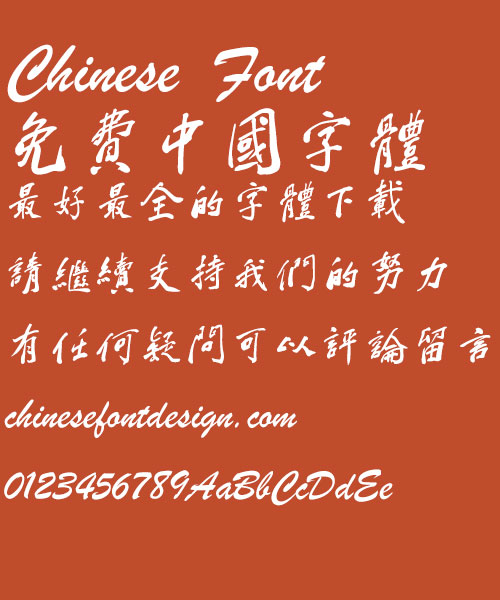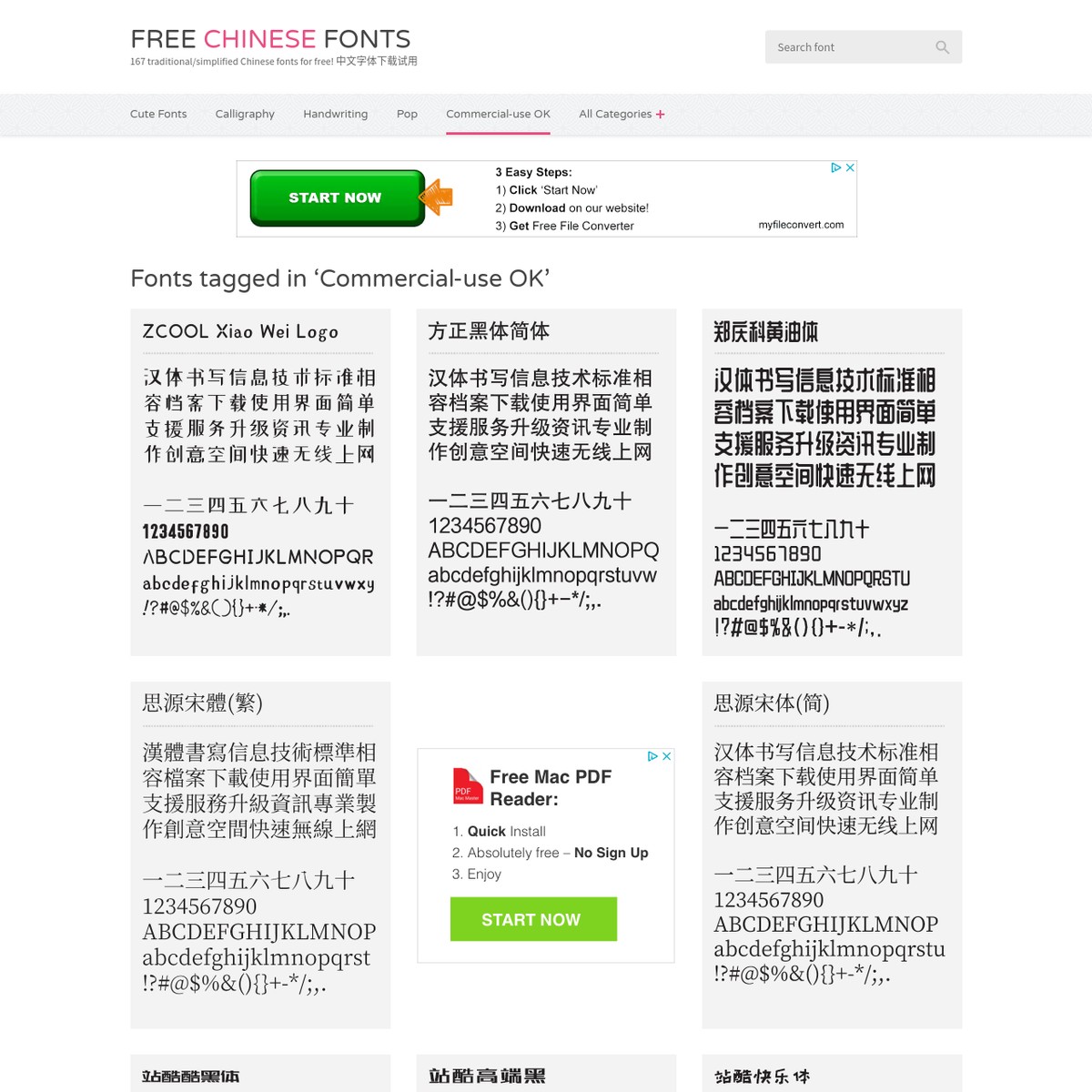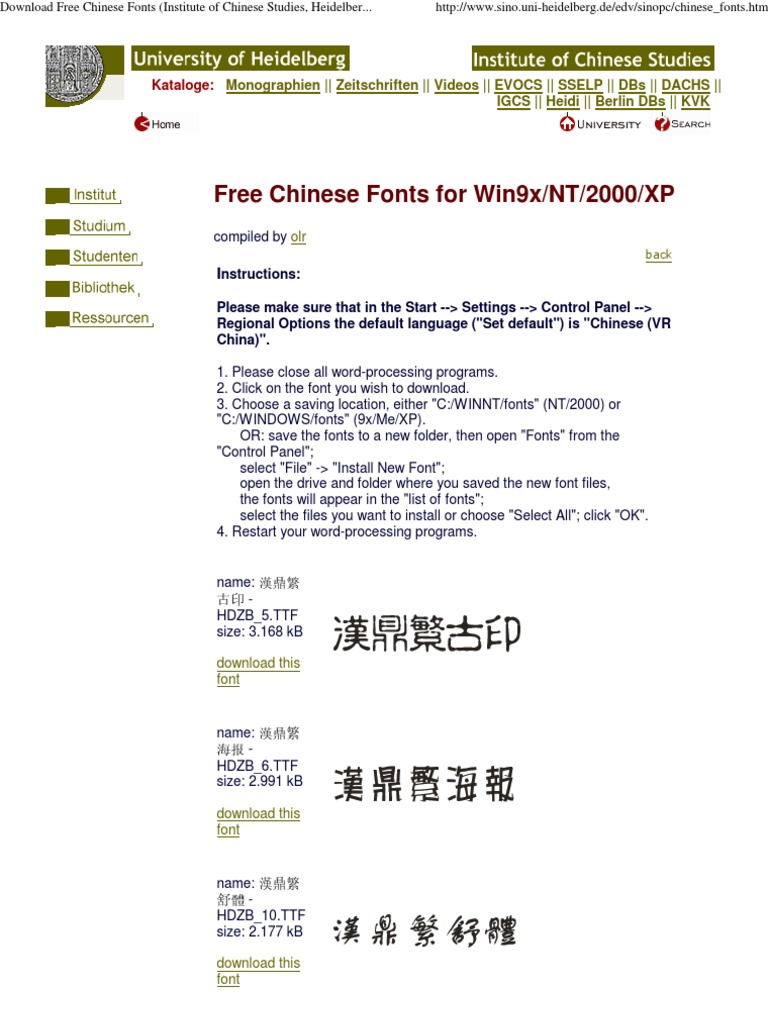
Meng na CO2YuenHKS-XboldOutline Font Simplified Chinese.
Free chinese fonts for commercial use. Ma Shan Zheng is a free calligraphic Chinese font that is set in a simplified Chinese character. Font Details cwTeX Q Ming Ti 中明體 is a traditional Chinese font that is free to download and you can use it in your commercial works. Free commercial Chinese fonts based on Siyuan Song Style.
Traditional cwTeX Q Ming. Free commercial font download of qingsong Handwritten Font. Hua Kang Dian Jing TiDFDianJing-B5 Font-Traditional Chinese.
This font is reminiscent of the font used in traditional couplet or dui. ZhanKu Happy Chinese Font Simplified Chinese. Meng na Wedding banquet Font- Traditional Chinese.
Simplified Founder Type Hei Ti. Free commercial Chinese font download. Font Details Han Wang Yen Light is a one of the font created by Taiwan professor Wang Han Zong 王汉宗 and is part of the open source font pack Wang.
ZhuLang Circle Art Chinese Font-Simplified Chinese Fonts. Meng na Xi yuanCYuen2HKS-Light Font Simplified Chinese. 17 Chinese Font Free For Commercial Use License- Wang han zong Fonts.
13 Fresh and Cool Fonts for Designers. Traditional cwTeX Q Kai. Quan zhen Yan ti Font-Traditional Chinese.
ZCOOL Xiao Wei Logo 站酷小微logo体 is a casual typeface you can download for free. Free commercial Chinese font download based on Siyuan Song Style. This font is specially designed for display or for logo design it works great for many.
Big Young Bold GB 20 逼格青春粗黑体简20 is a techie edgy and modern simplified Chinese font that can be downloaded for free. Google Fonts now has free Chinese fonts. Fonts tagged in Commercial-use OK.
This page offers a useful selection of free Chinese fonts for Windows. Traditional Han Wang Yan Kai calligraphy font. Sans Serif Free for commercial use OFL.
Download Free Unicode Chinese Fonts - Cool Text. Both Simplified Chinese and Traditional Chinese fonts are available. Free commercial Garden Ming Style download-copyright-free Chinese font series.
Traditional Han Wang Yen Light Rounded Font. Founder Type Hei Ti 方正黑体简体 is a very formal sans serif font that is free to download.